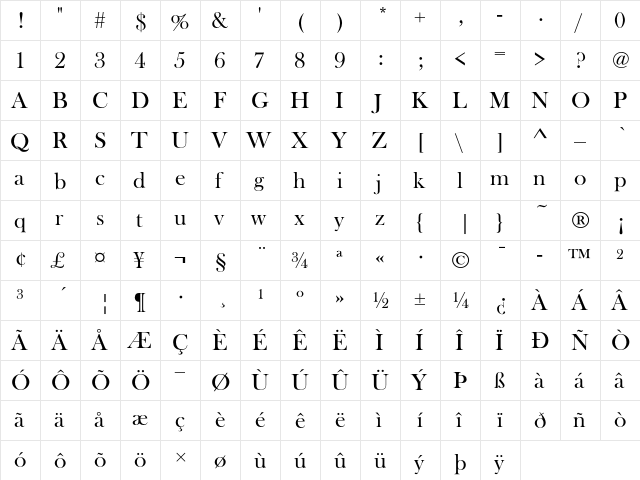
Baskerville Old Face D Regular
Design Context for Baskerville Old Face D Typeface
Baskerville Old Face D is a composed and adaptable typeface that performs quietly and consistently across a wide range of design contexts.
Pro Tip: Pair Baskerville Old Face D with a font of contrasting weight or personality to build a more expressive typographic hierarchy.